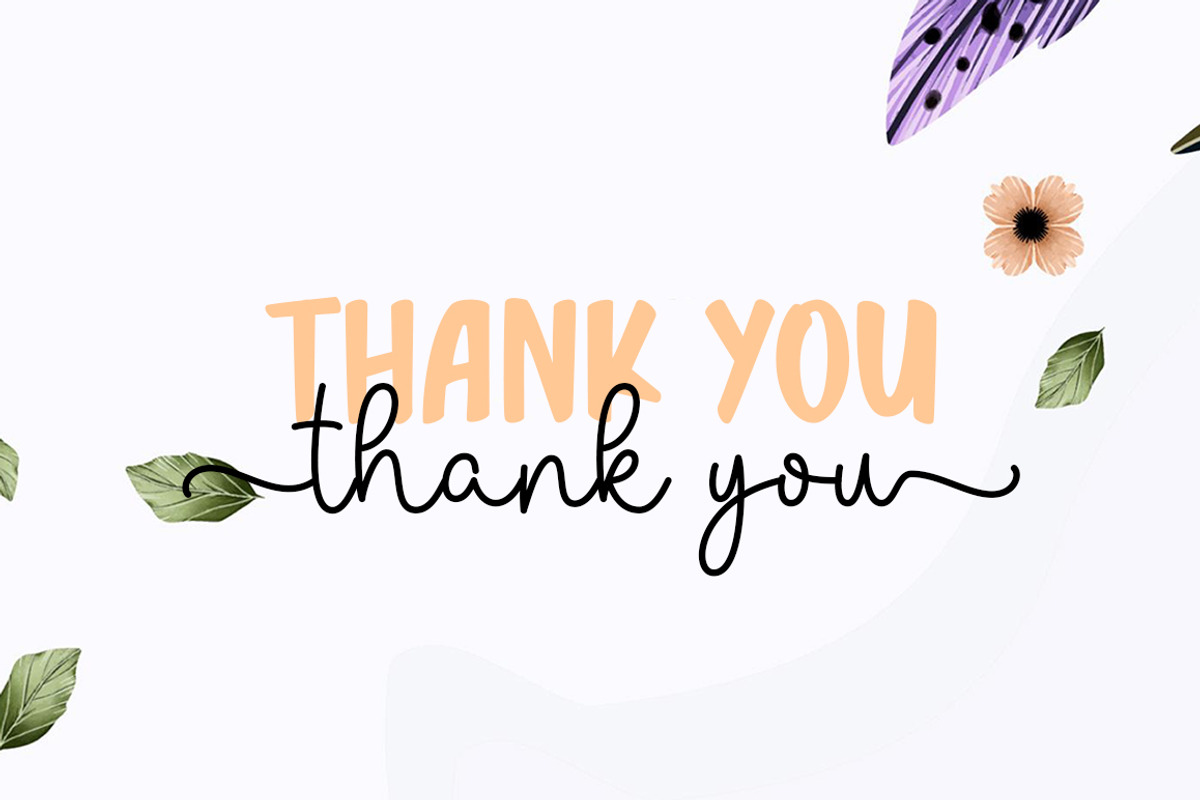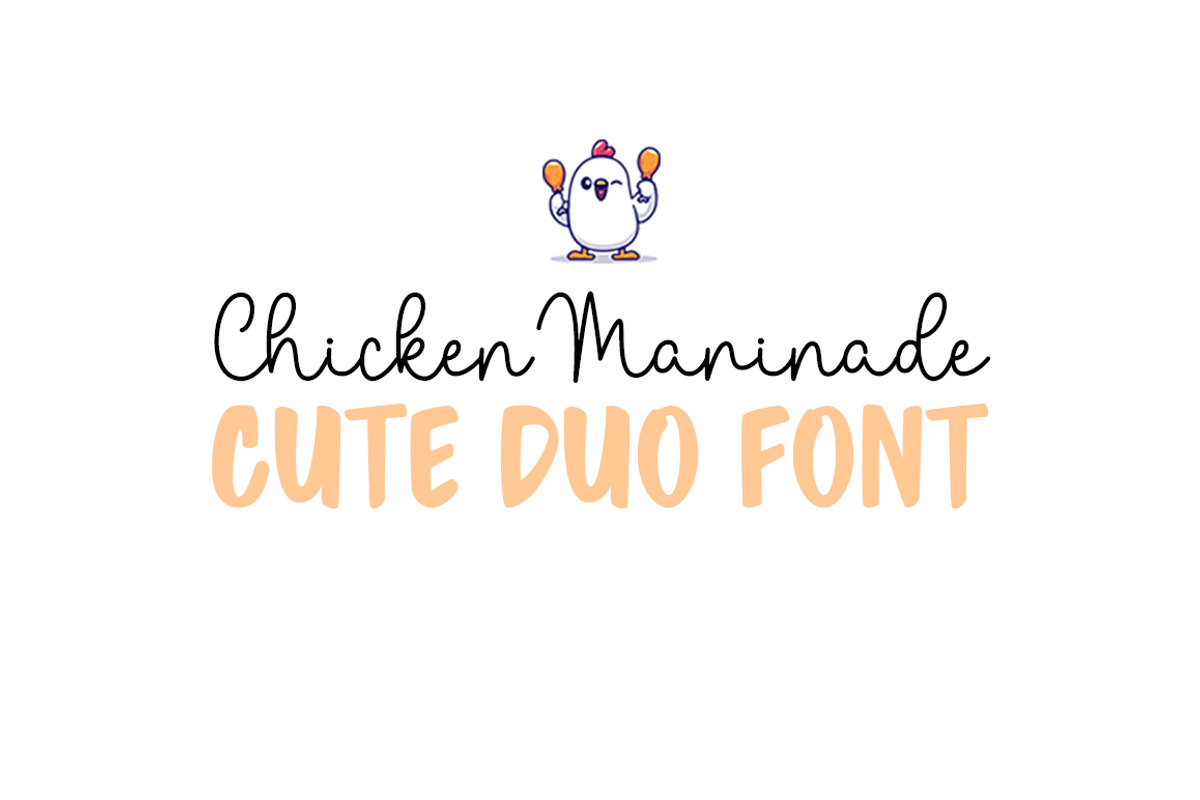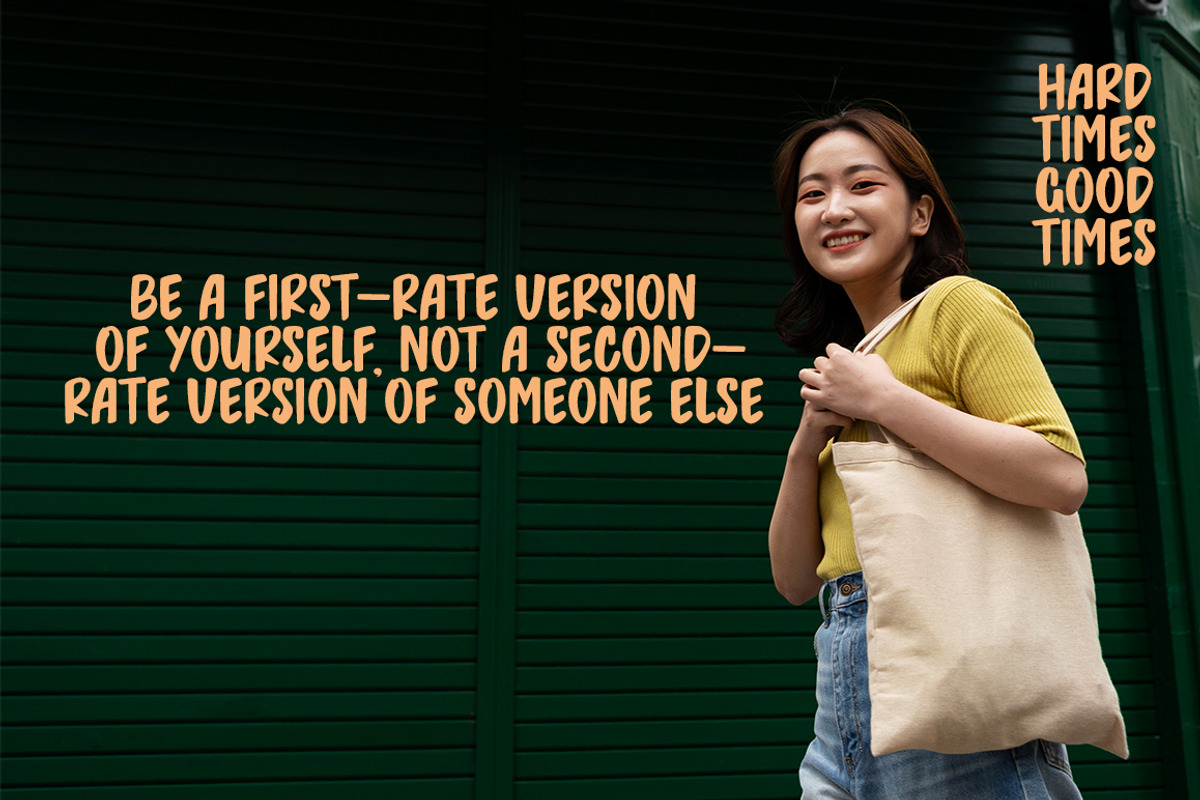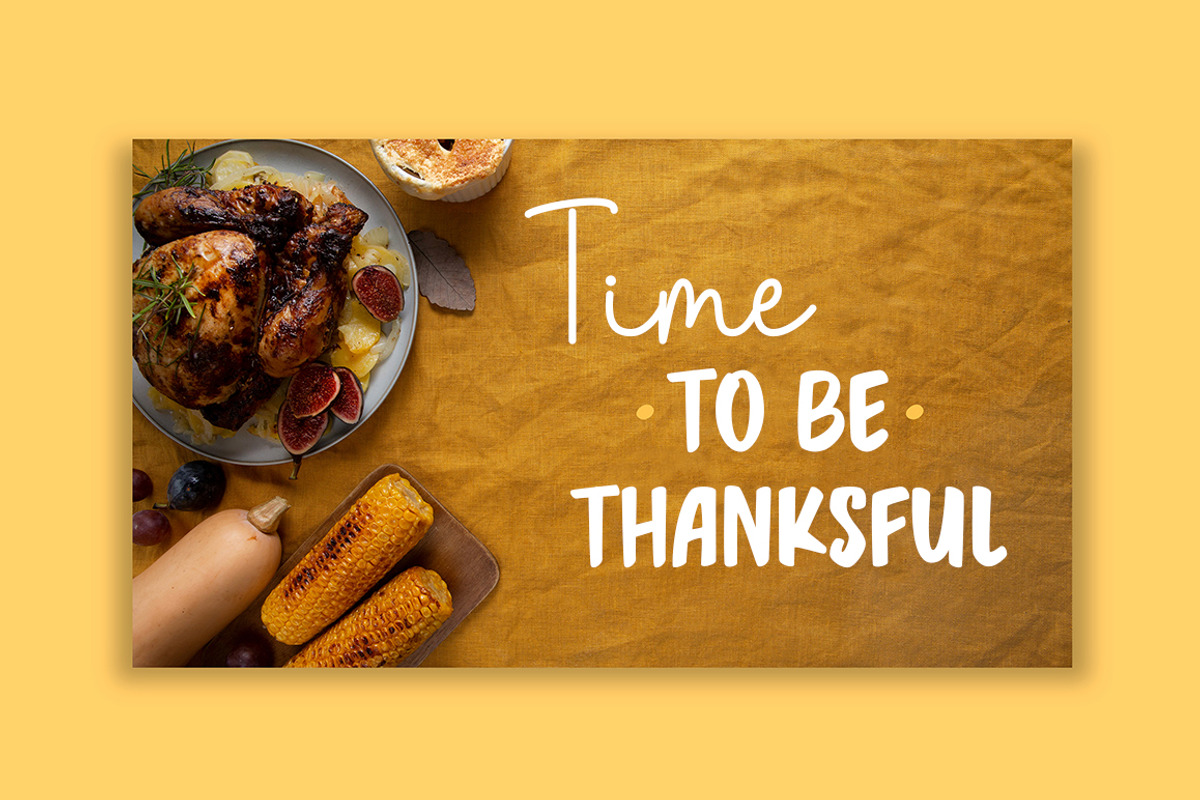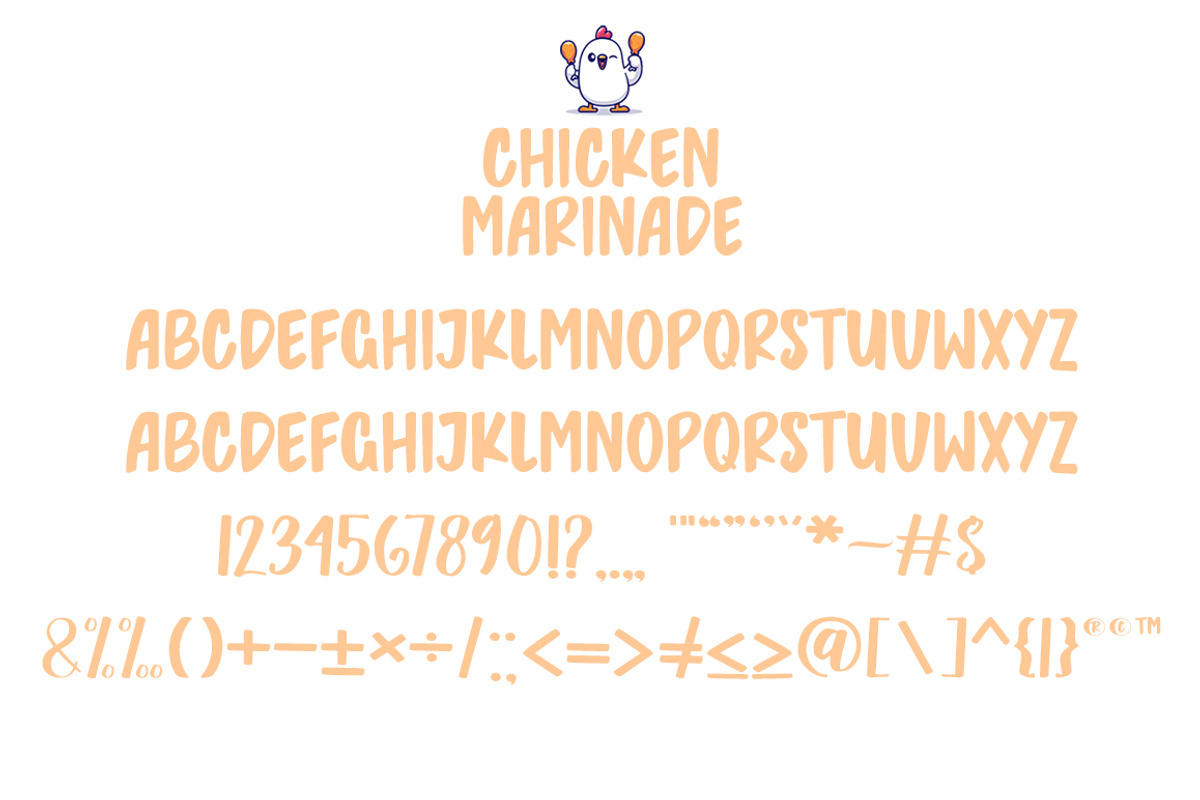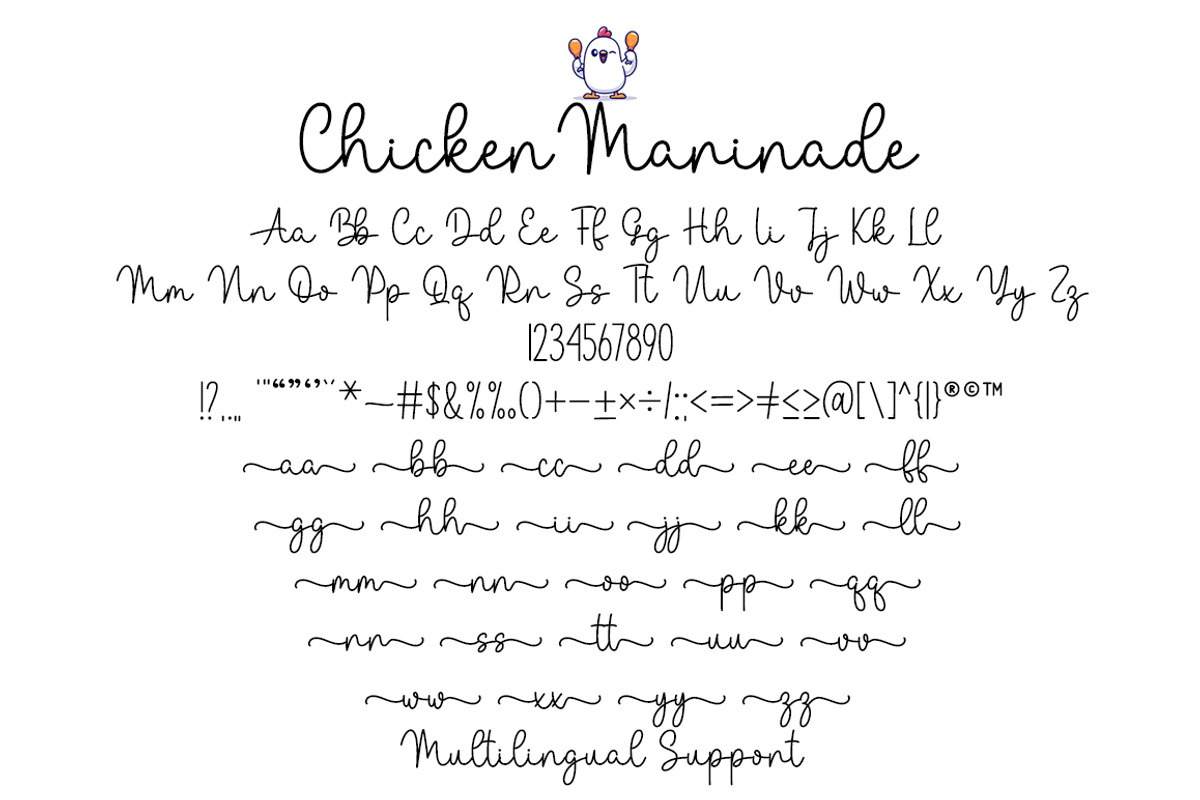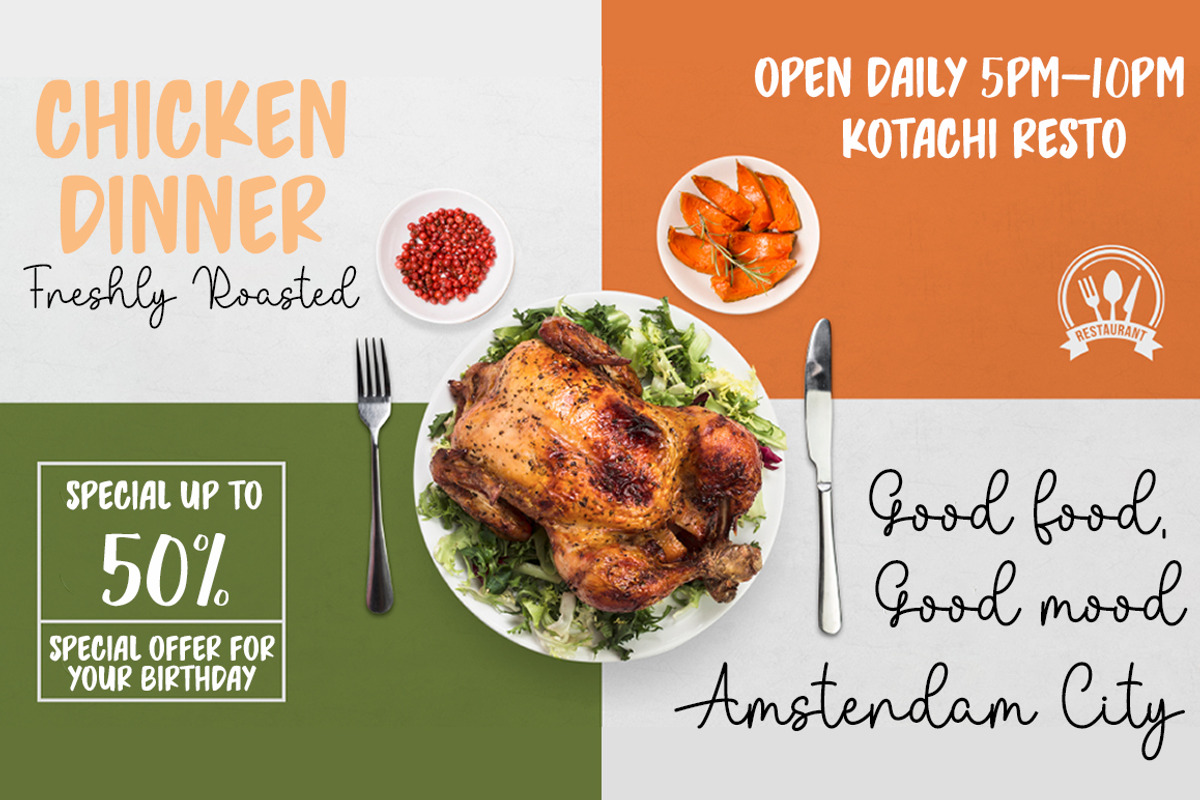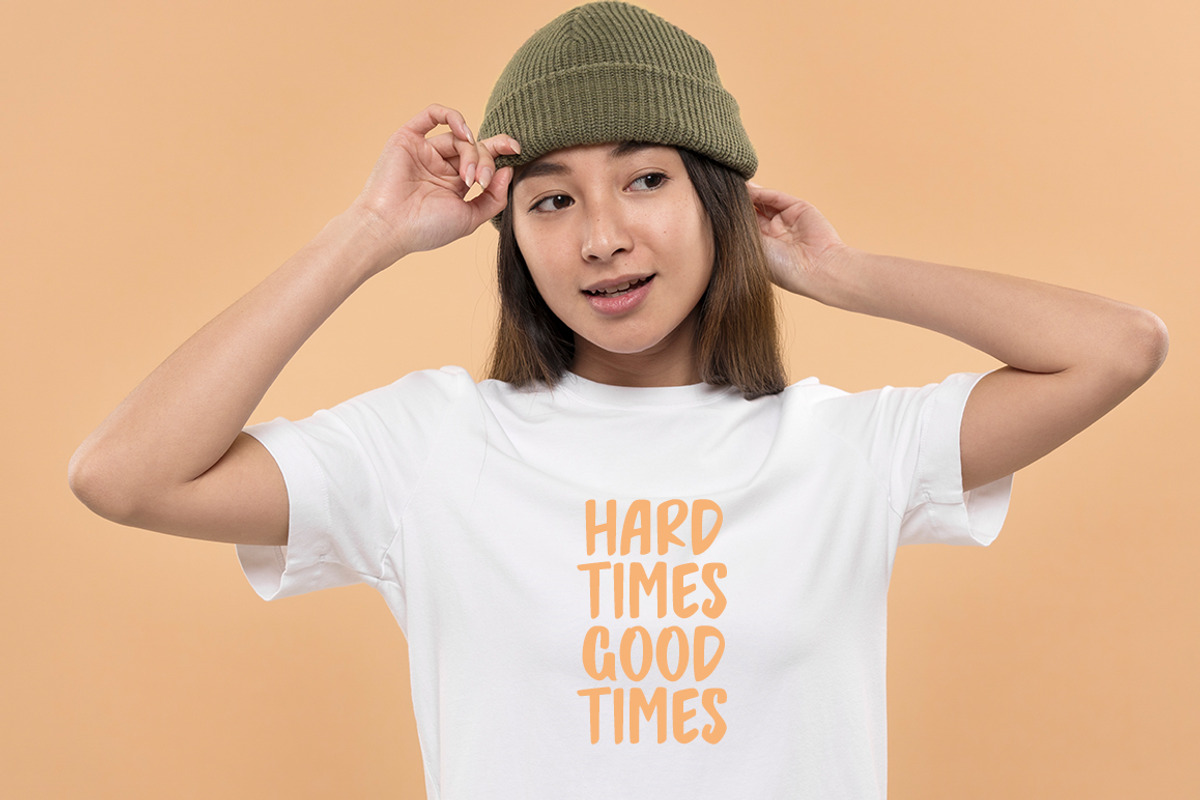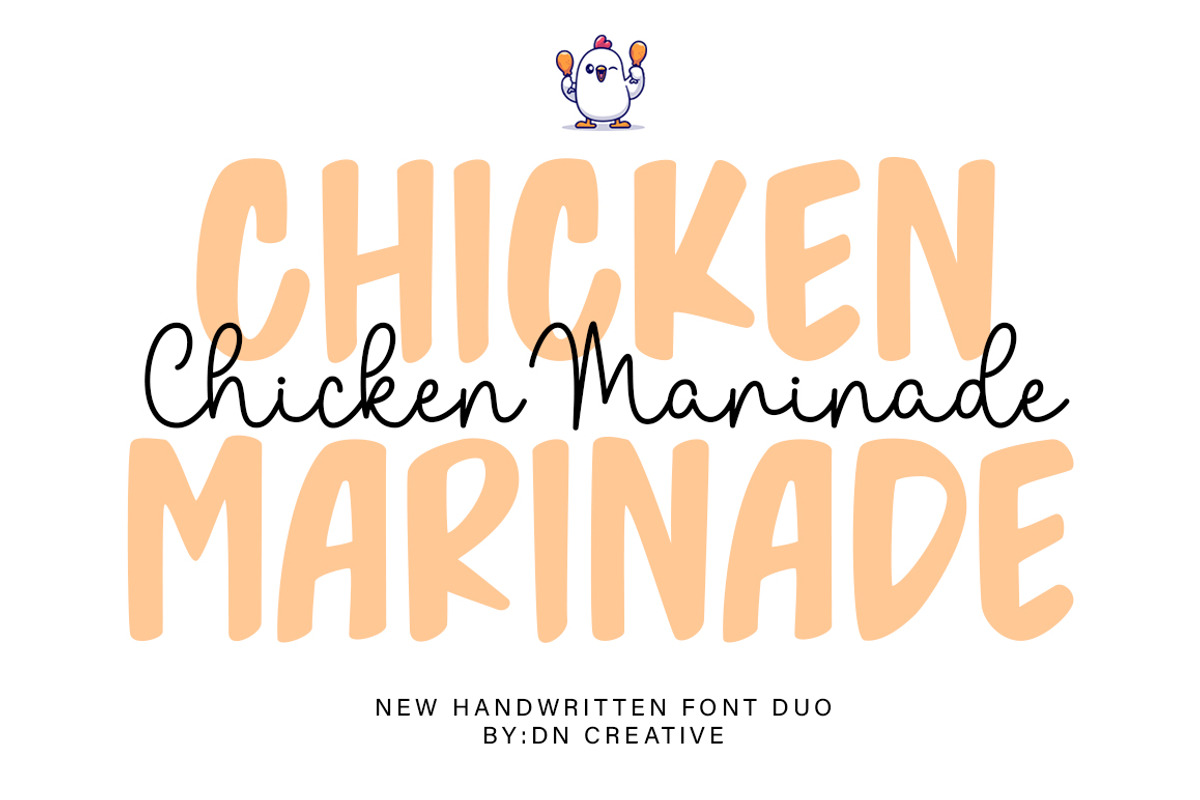
Chicken Marinade Duo
Indulge your creative endeavors with the Chicken Marinade Duo – a poised and effulgent font duet that harmoniously combines a sans serif and script style. This versatile typography marvel effortlessly melds into a diverse range of applications, from crafting heartfelt greeting cards to impactful headlines. Among the unique facets of the Chicken Marinade Duo is its uncanny ability to imbue each artistic expression with a warmth, serving a romantic touch on demand. This font duo is also intricately PUA encoded, ensuring seamless access to a vast array of glyphs and ligatures to further enhance your creative endeavors with minimum effort and maximum effect